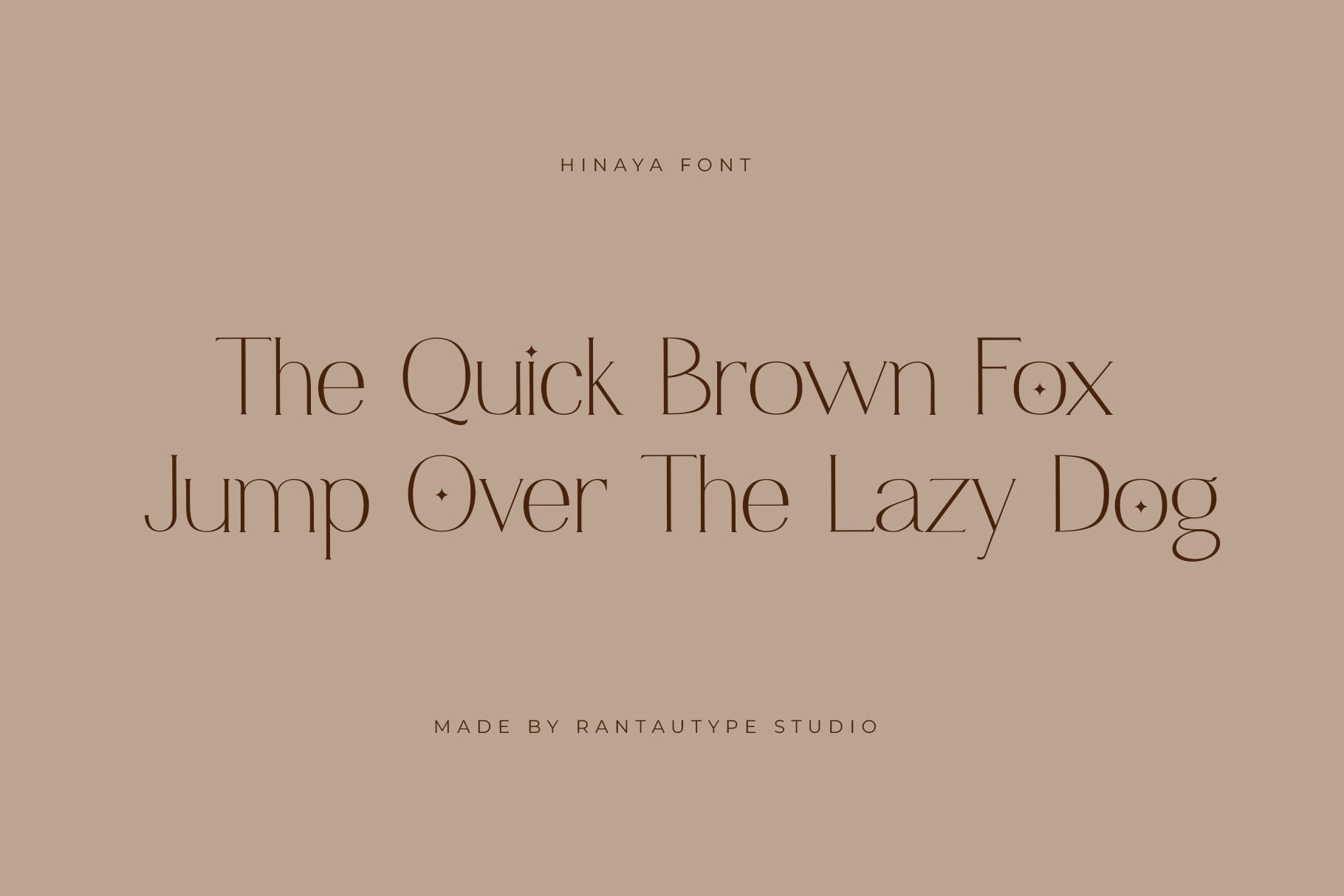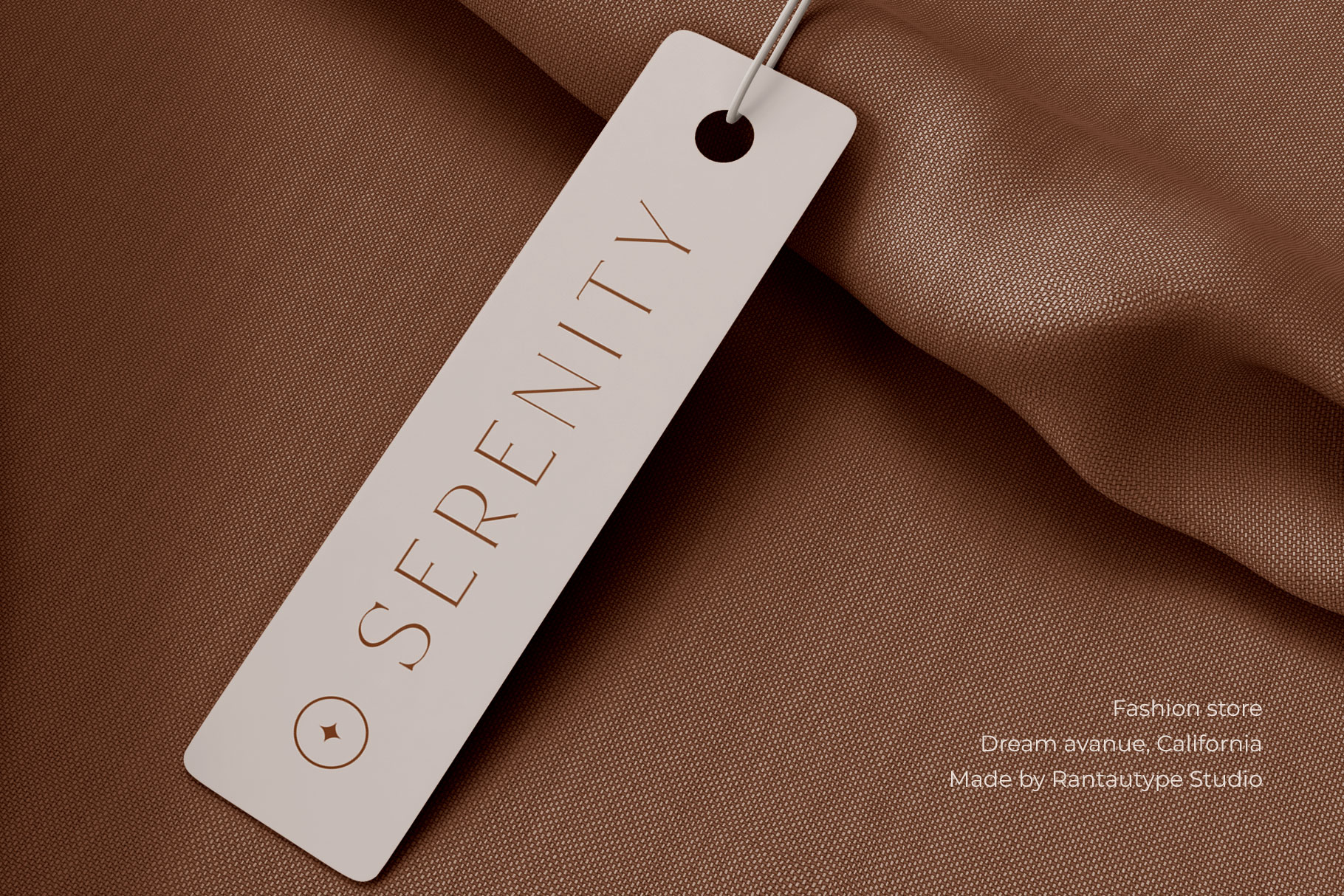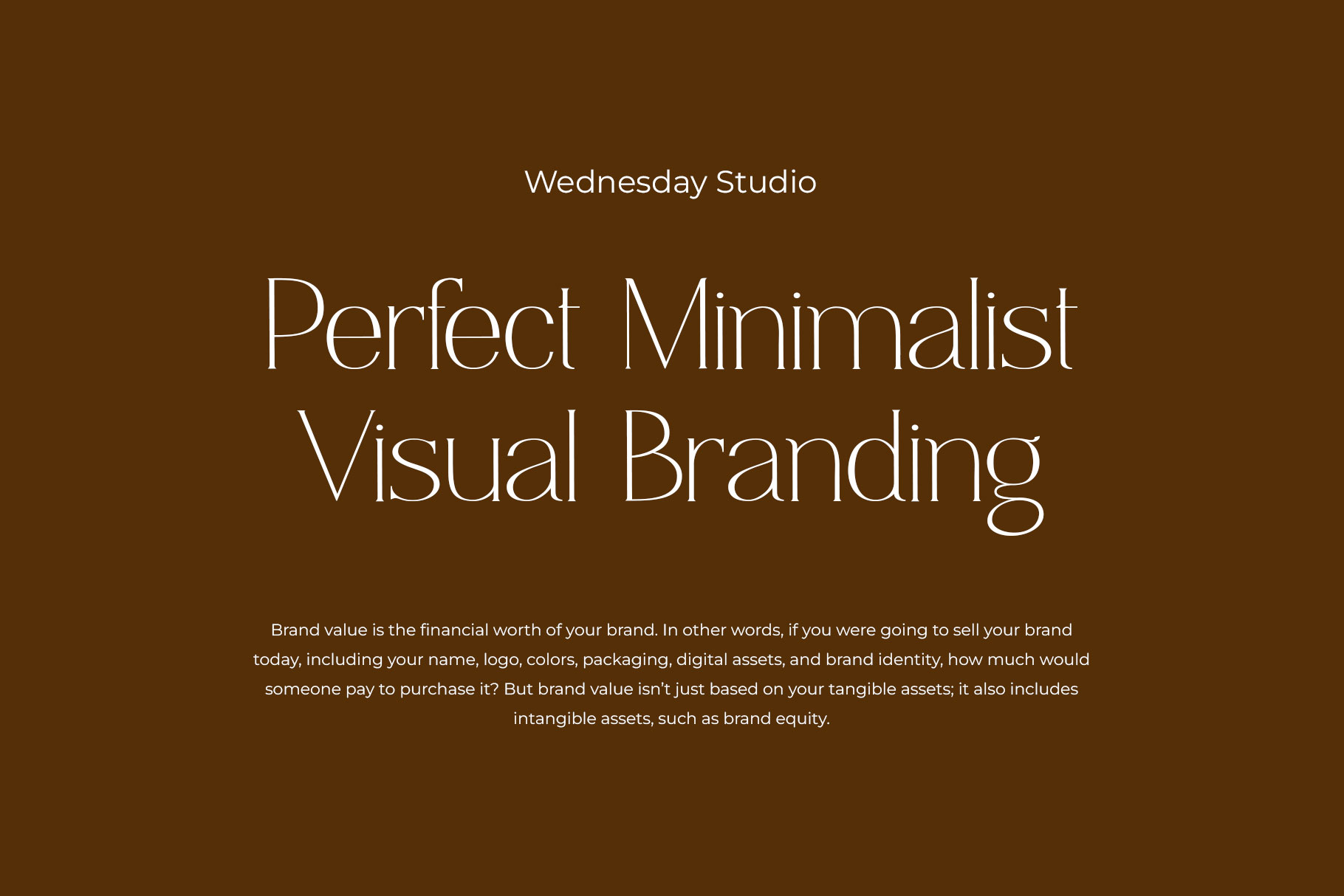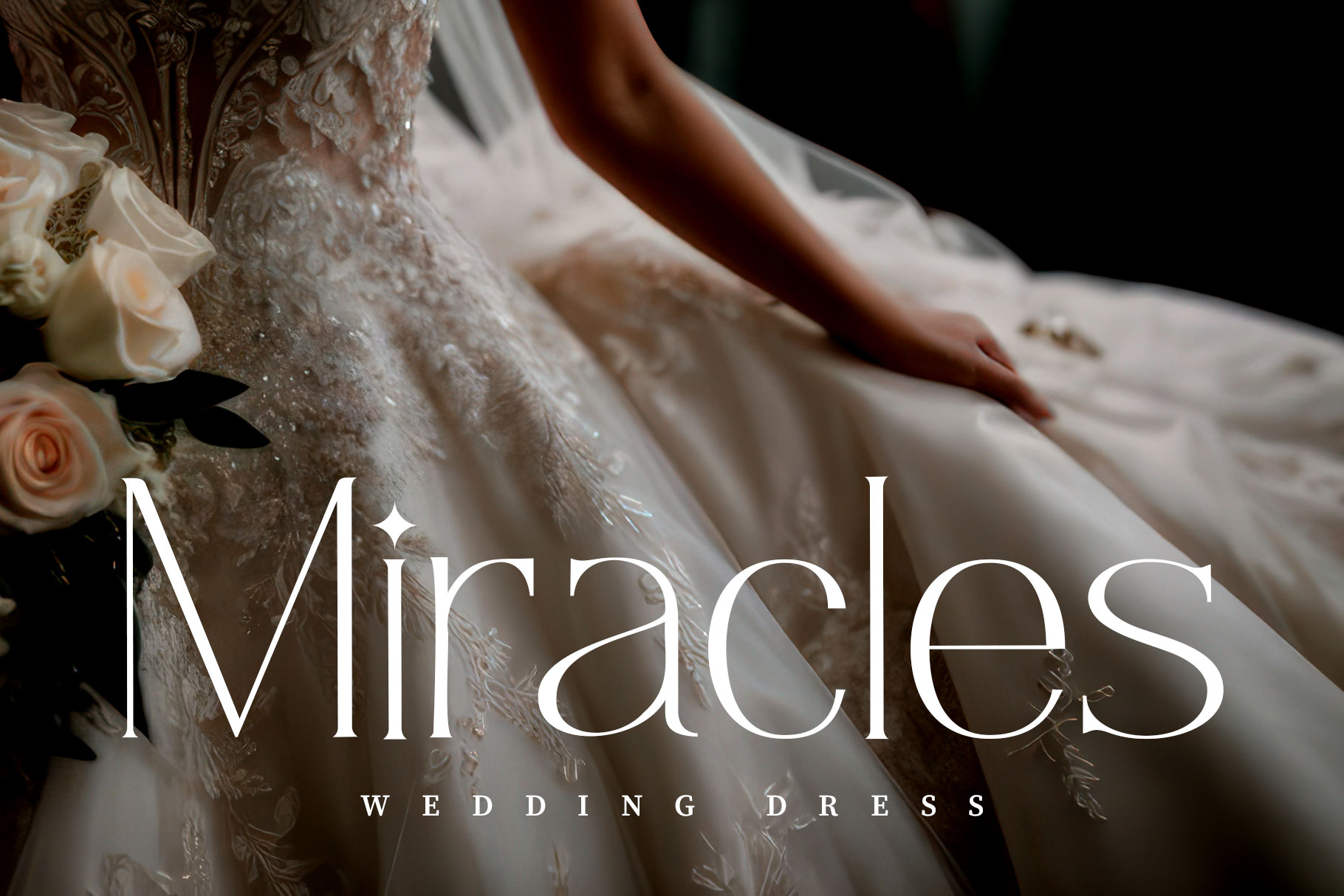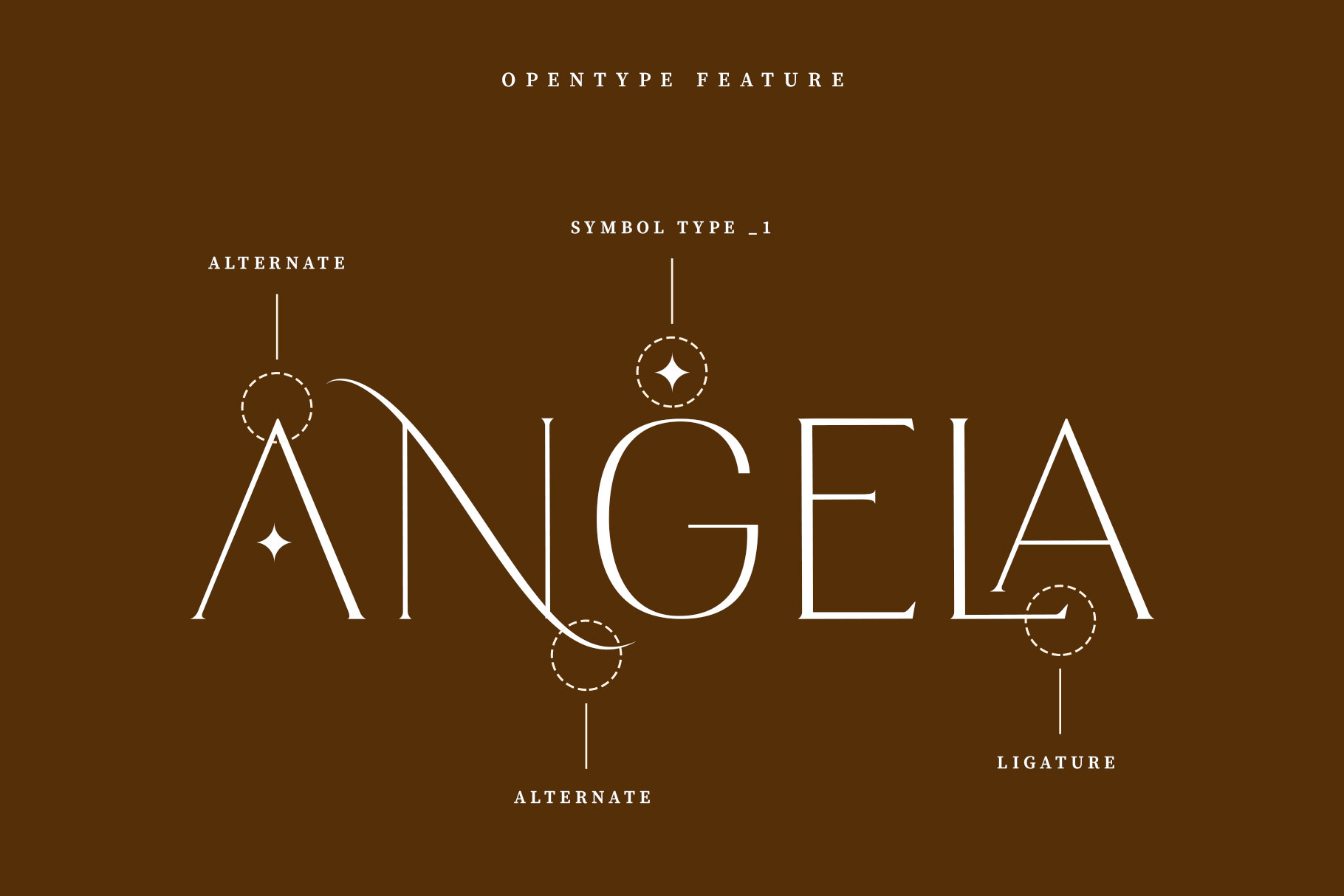
Hinaya Modern Serif Font
Hinaya is modern serif typeface with elegant visual thin display.
Hinaya is a perfectly choice for any creative endeavor, chic, lifestyle design such as logos, advertisements, watermark on photography, stationery, branding project, display and magazine, invitation, corporate brand, product design, label, business project and many other project with elegant touch.